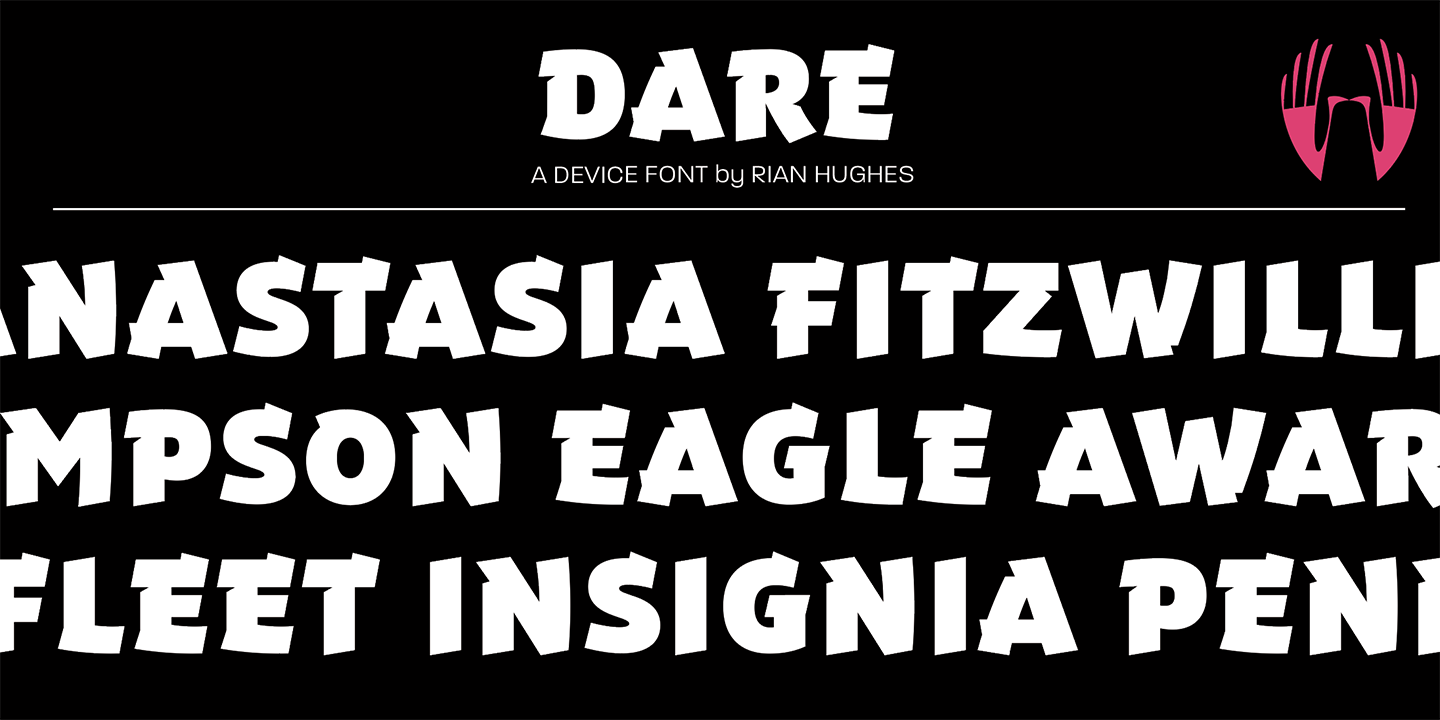
Dare Font is perfect for extreme sports branding, adventure challenge campaigns, bold motivational posters, fearless brand identities, adrenaline-focused marketing, risk-taking business ventures, courage-inspiring materials, audacious advertising designs, and breakthrough innovation projects.
What makes Dare Font so exciting is its fearless boldness that perfectly embodies the courageous spirit and audacious determination of those who dare to push boundaries and challenge limitations. This commanding typeface features confident letterforms with daring proportions and risk-taking character details that instantly inspire action and motivate bold decision-making. The font's distinctive character incorporates the essence of courage while maintaining exceptional readability, making it ideal for brands seeking to communicate bravery, innovation, and the willingness to take calculated risks for extraordinary results.
Dare Font offers a bold family collection including Regular, Bold, Light, and Black variations, each maintaining the signature daring aesthetic while providing different levels of courageous impact for various challenge-focused applications. Additional motivational symbols and adventure-inspired ornaments enhance the font's authentic fearless appeal for breakthrough projects.
Whether you're developing audacious brand identities, creating motivational marketing materials, or designing challenge-driven campaigns, Dare Font Free Download delivers the courage and fearless authenticity that bold projects require. Its versatile nature makes it suitable for both inspiring display applications and motivational text settings while maintaining consistent daring appeal across all challenge platforms. This exceptional typeface combines fearless spirit with practical functionality, ensuring your message communicates courage and determination that resonates with audiences who embrace challenges and appreciate design that celebrates the magnificent power of daring to dream big and taking bold action to achieve extraordinary goals.